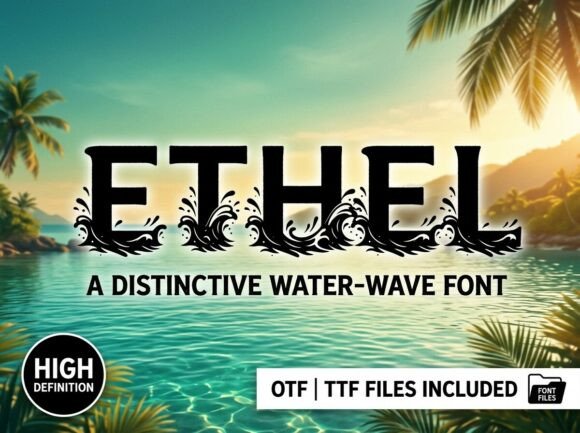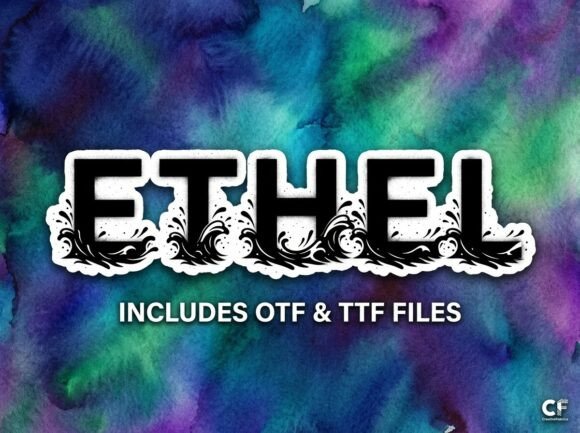
The Ethel Font: A Stunning Decorative Display Font for Creative Minds
Have you ever been working on a design project, and suddenly, you’re stuck on finding the perfect font? I recall a recent experience where I was tasked with creating a bold headline for a client’s logo. I scoured the internet for hours, but nothing seemed quite right. That was until I stumbled upon the Ethel Font. This stunning decorative display font has been a game-changer for my design work, and I’m excited to share my thoughts with you.
My Honest Review of Ethel Font
- ✨ Unique artistic elements that make it stand out from the crowd
- ✅ Strong visual personality that’s perfect for making a statement
- 💼 Versatile enough for bold headlines, artistic logos, and creative packaging
- 👍 Professional and polished finish that’s suitable for a wide range of design projects
⚠️ One thing to note is that the Ethel Font is an ALL-CAPS (Uppercase Only) display typeface. This means it doesn’t include lowercase letters, which might be a limitation for some designers. However, this also means that every letter is a work of art, making it perfect for high-impact headlines, logos, and decorative initials.
The Backstory of Ethel Font
The Ethel Font was designed with the intention of creating a unique and eye-catching display font. The designer aimed to craft a font that would be perfect for high-impact headlines, logos, and decorative initials. With its strong visual personality and artistic elements, the Ethel Font is sure to make a statement in any design project.
| Q: Is the Ethel Font suitable for body text? | A: No, the Ethel Font is a display font designed for headlines, logos, and decorative initials. It’s not suitable for body text. |
| Q: Does the Ethel Font include stylistic alternates or glyphs? | A: Yes, the Ethel Font includes advanced OpenType features, such as stylistic alternates and glyphs, which can be accessed in compatible design software. |